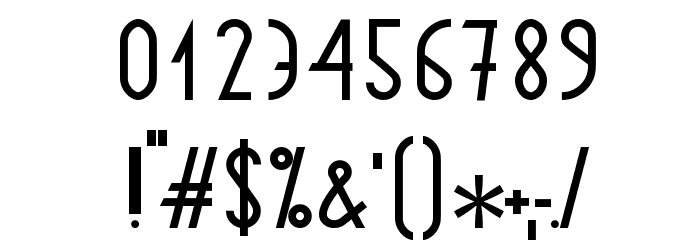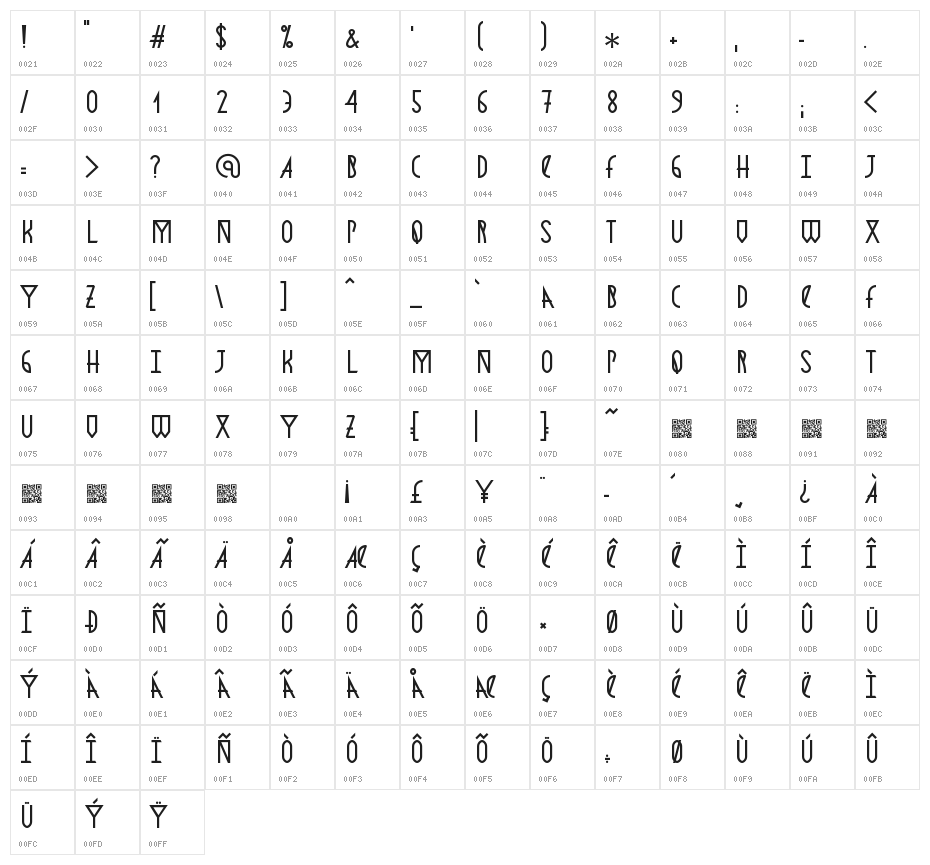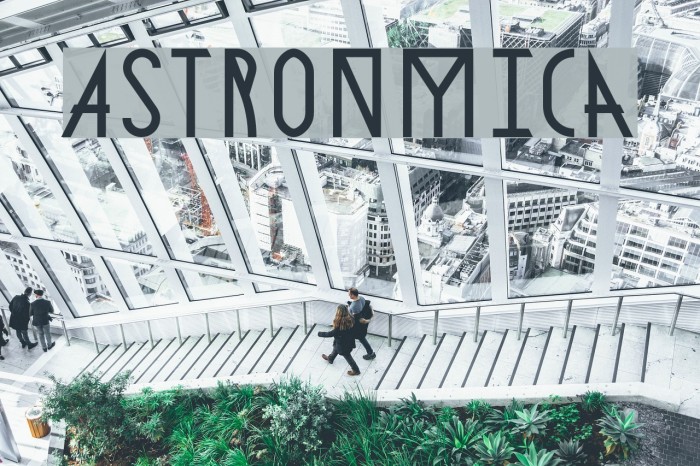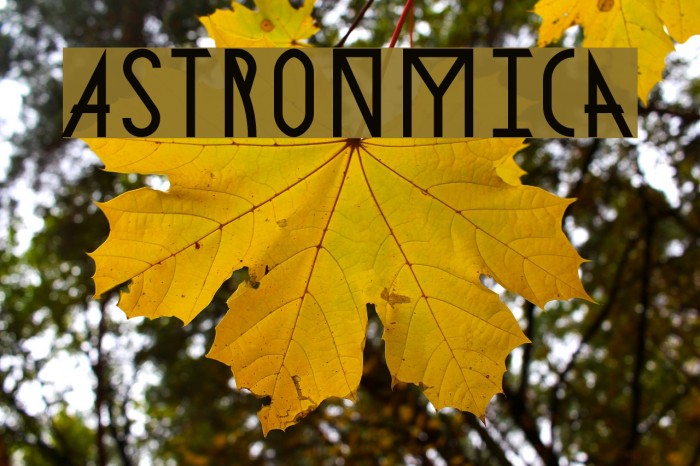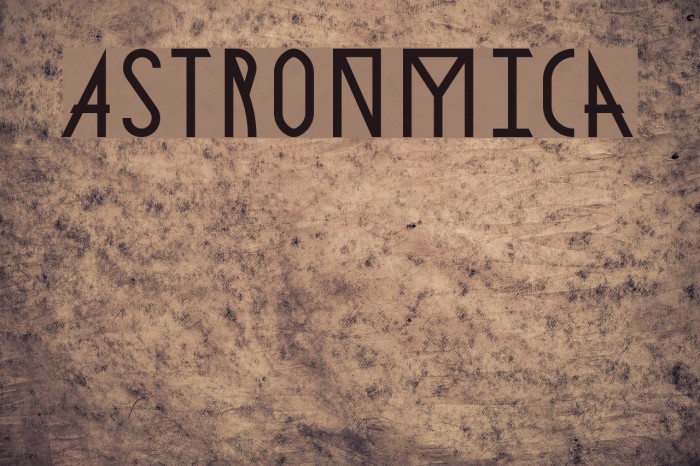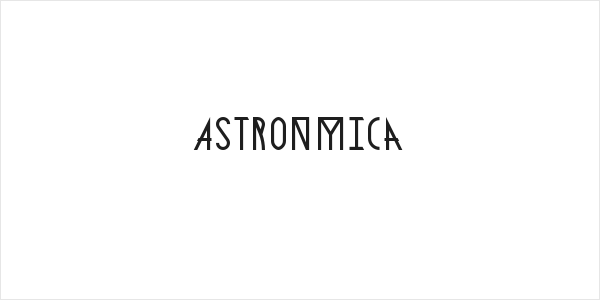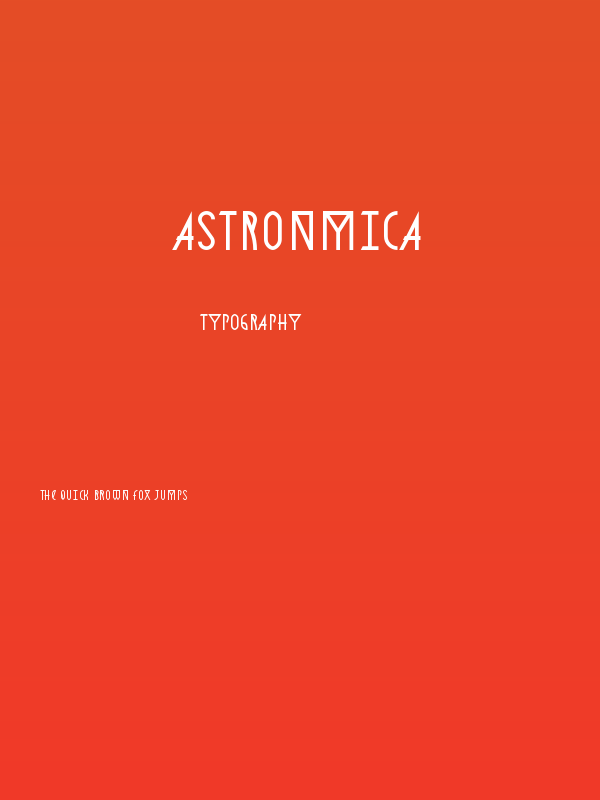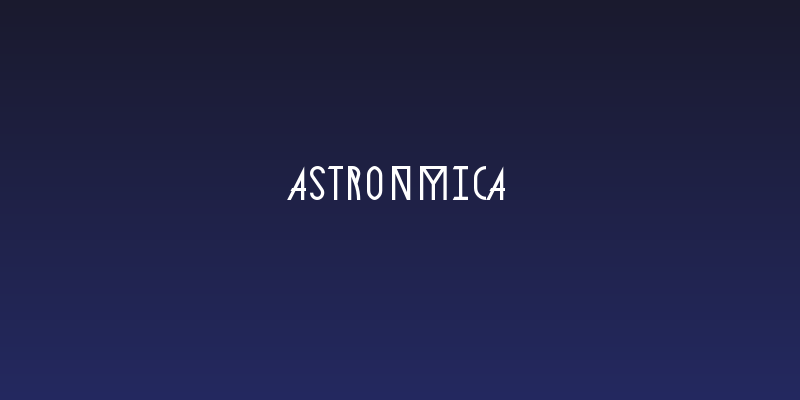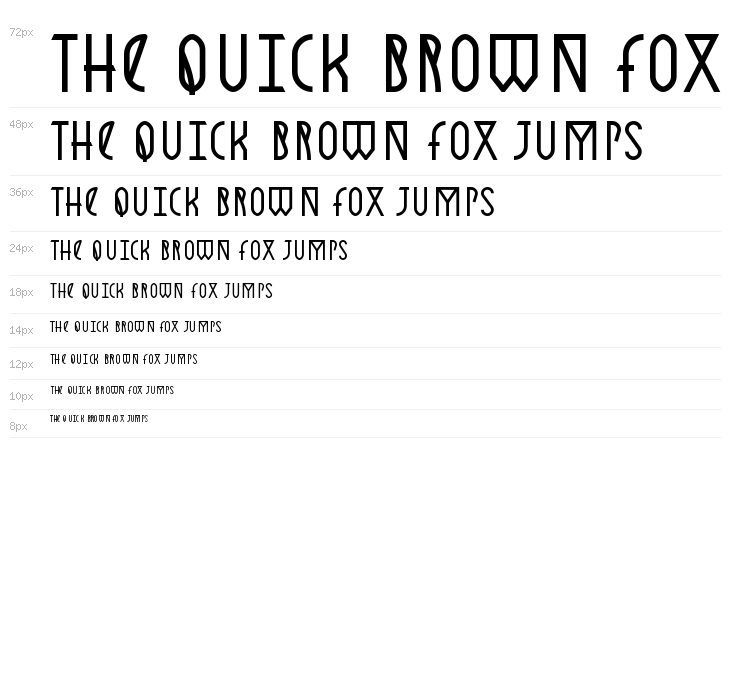
Astronmica Font
Astronmica Description
This font features a futuristic and geometric design, characterized by its angular and sharp edges. The uppercase letters are distinct with a blend of straight lines and unique curves, creating a modern and tech-inspired appearance. The numerals maintain this style, offering a cohesive look across all characters. Special characters are crafted with the same attention to detail, ensuring they fit seamlessly with the overall aesthetic. The font's design is both bold and striking, making it ideal for projects that require a contemporary and innovative touch.
| Proposed Projects | Ideal for tech branding, sci-fi posters, video game titles, and modern logos. |